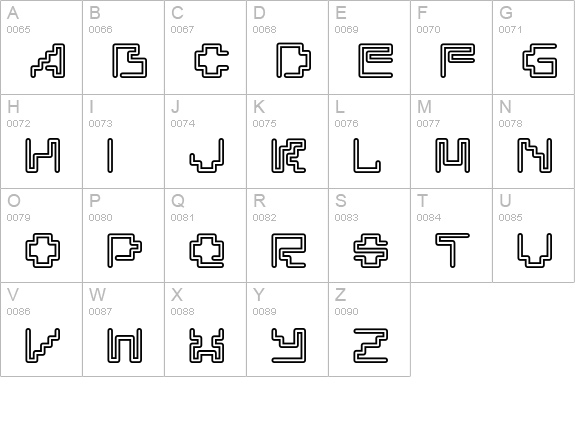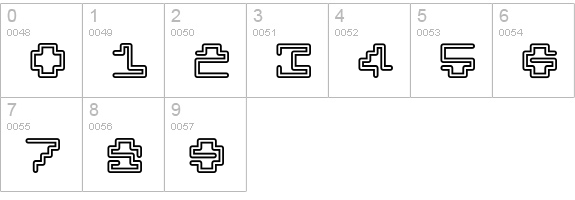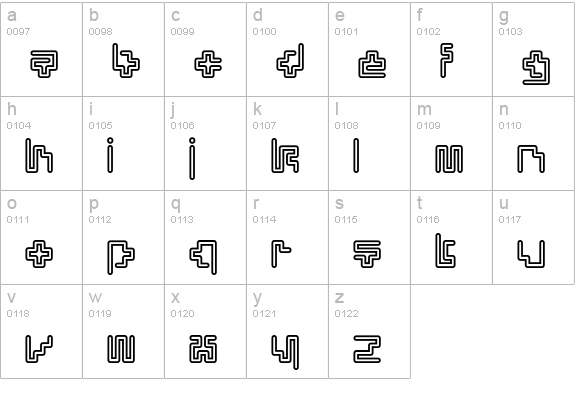
Silesia-Inline Font Details
Silesia-Inline is a striking and bold font that combines elegance with a modern twist. Its unique design features sharp, clean lines that create a sense of precision and sophistication. With its inline style, this font effortlessly captures attention and adds a touch of dynamism to any creative project. This font is perfect for a wide range of applications, including branding, logo design, headlines, packaging, posters, and more. Its versatility allows it to adapt to various design styles, making it a valuable asset for both professional designers and DIY enthusiasts. One of the best things about Silesia-Inline is that it is completely free. Yes, you read that right! This fantastic font is freely available to download at FontsMarket.com. Now, you can enjoy the elevated aesthetics of Silesia-Inline without breaking the bank. Whether you're a seasoned designer looking to enhance your typographic arsenal or a beginner exploring the world of fonts, Silesia-Inline is a must-have. Its sleek and contemporary style is sure to make your designs stand out from the crowd. Don't miss out on the opportunity to download this incredible font for free at FontsMarket.com. Add Silesia-Inline to your collection today and let your creativity soar to new heights.